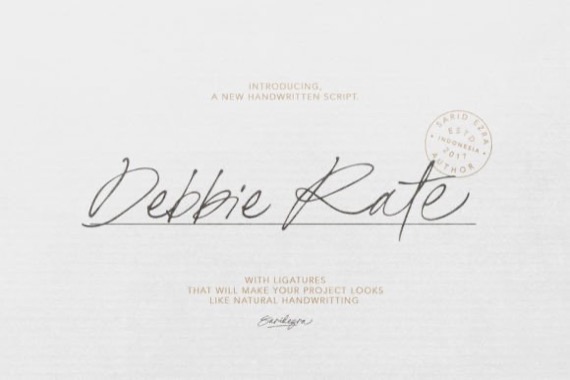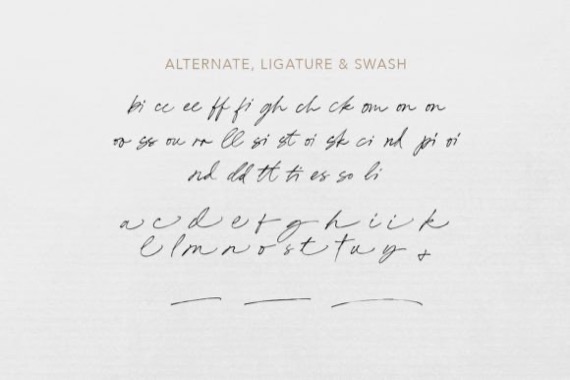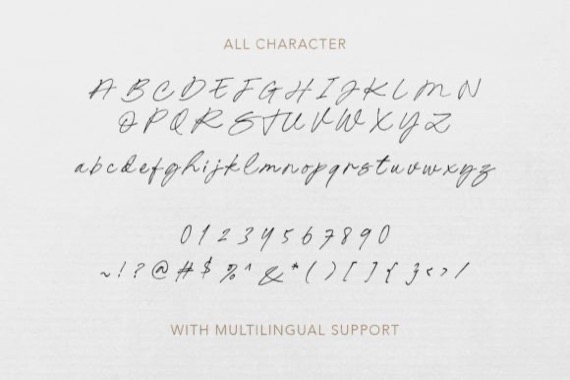
Debbie Rate is a handwriting script font that was created and released by Saridezra with many ligatures that will make your project looks more natural. This font can be used for a variety of purposes, including quotes, branding, or wedding invitations. Its extensive ligature collection enhances the natural and distinctive appearance of your project. This font is PUA encoded which means you can access all of the amazing glyphs and ligatures with ease!
Debbie Rate Handwritten Font
Designer, Publisher: Saridezra